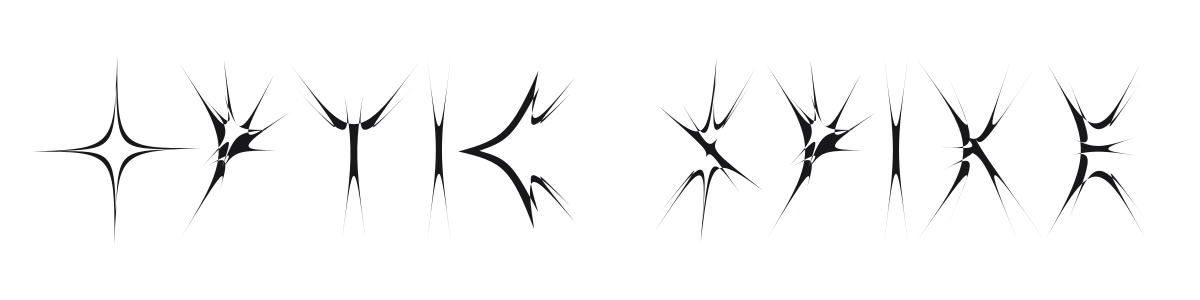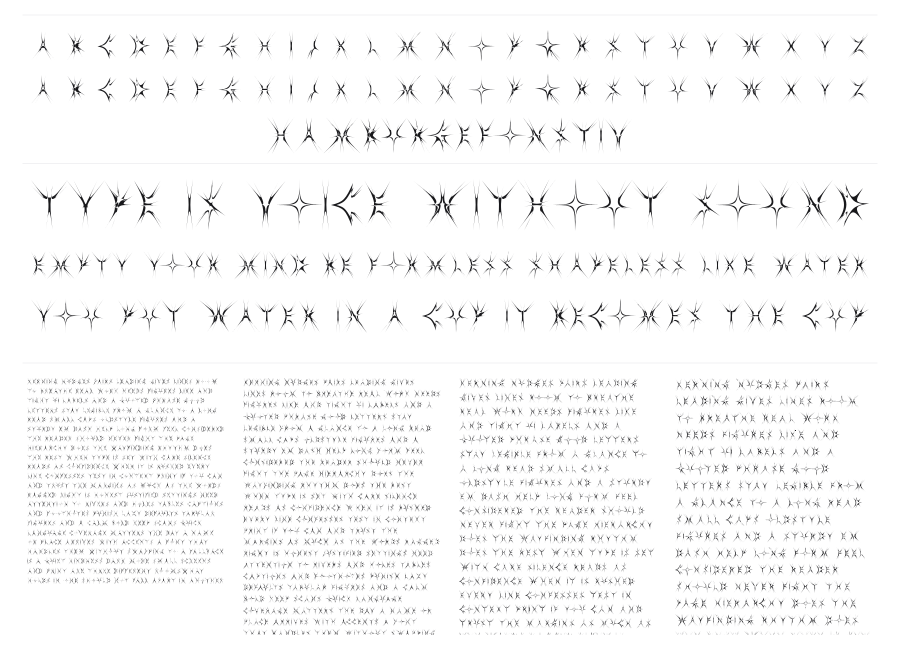
Optic Spike
Optic Spike is a sci-fi display font where every character explodes outward in sharp, radiating spikes. The extreme contrast between hairline points and structural centers gives it an almost alien, starburst quality that sits somewhere between psychedelic art and futuristic design. Strong for key art, magazine covers, and gaming titles where impact matters more than legibility.